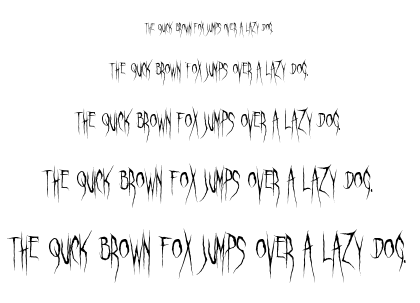
Ghastly Panic
Ghastly Panic Font
Created 2005, hand-lettered while watching the 2004 remake of “Dawn of the Dead”. This font is somewhat in response to Chris Hansen’s amazing font “Frank Knows”.